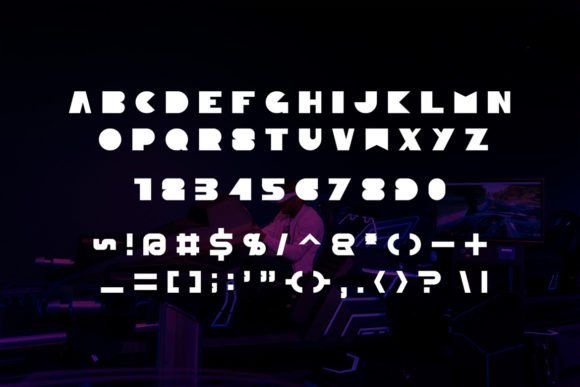
The Designer’s Delight: Unveiling the Daren Beam Font
I’ll never forget the time I was working on a project for a trendy boutique hotel, and I just couldn’t find the right font to capture their modern, edgy vibe. The client wanted something that would make their branding stand out, but still convey a sense of sophistication. That’s when I stumbled upon the Daren Beam font, and let me tell you, it was love at first sight! 💫
As a designer, I’m always on the lookout for fonts that can elevate my work without being too over-the-top. Here’s what I think about Daren Beam:
- ✨ Versatility: This font is a chameleon! It works beautifully for titles, typography, posters, magazines, brochures, packaging, and websites.
- ✅ Legibility: Even at smaller sizes, Daren Beam remains crisp and easy to read.
- 💥 Impact: It’s a real showstopper, perfect for making a bold statement.
Now, no font is perfect, and Daren Beam has a few minor quirks:
- 🤔 Limited use in body text: While it’s amazing for headlines, it might not be the best choice for longer blocks of text.
- ⚠️ Some glyphs may require manual adjustment: Depending on your design, you might need to tweak certain characters for optimal spacing.
While the origins of Daren Beam are shrouded in mystery, it’s clear that the designer was inspired by the world of modern typography. With its clean lines, sharp edges, and bold personality, Daren Beam is the perfect reflection of contemporary design trends.
| Font Name | Daren Beam Font |
| Author | zerologicstudio |
| What type of projects is Daren Beam best suited for? | Daren Beam is perfect for titles, typography, posters, magazines, brochures, packaging, websites, and more! |
| Is Daren Beam suitable for body text? | While it’s amazing for headlines, Daren Beam might not be the best choice for longer blocks of text. Consider using a complementary font for body text. |
| Does Daren Beam support OpenType features? | Yes, Daren Beam supports OpenType features, including glyphs and stylistic alternates. Access these features through your design software’s font menu or keyboard shortcuts. |